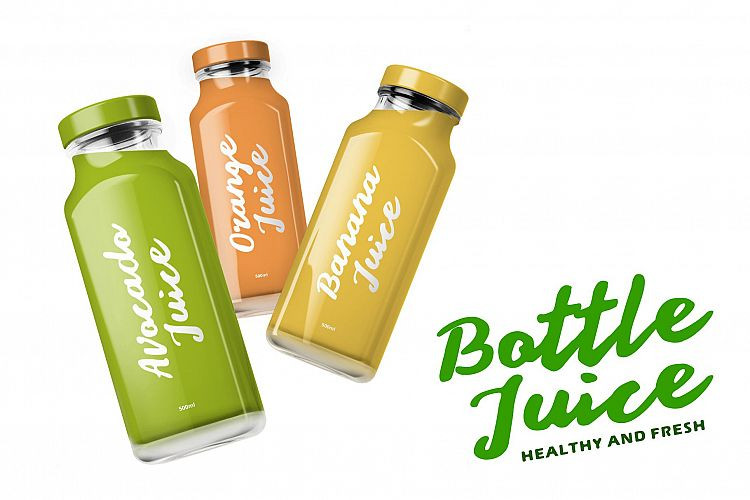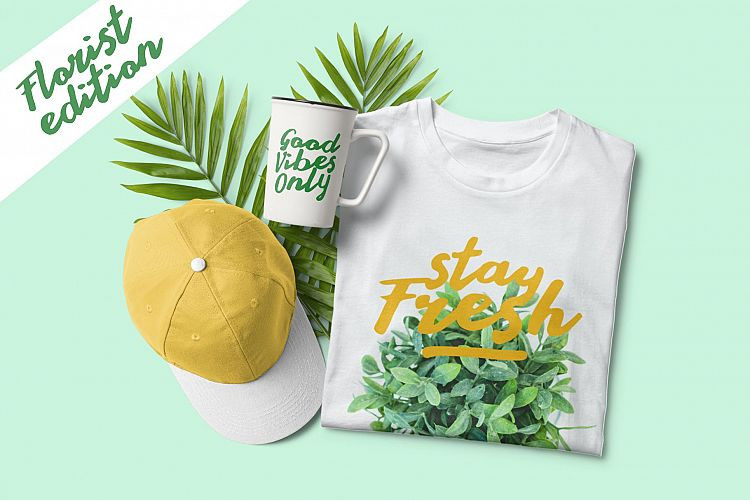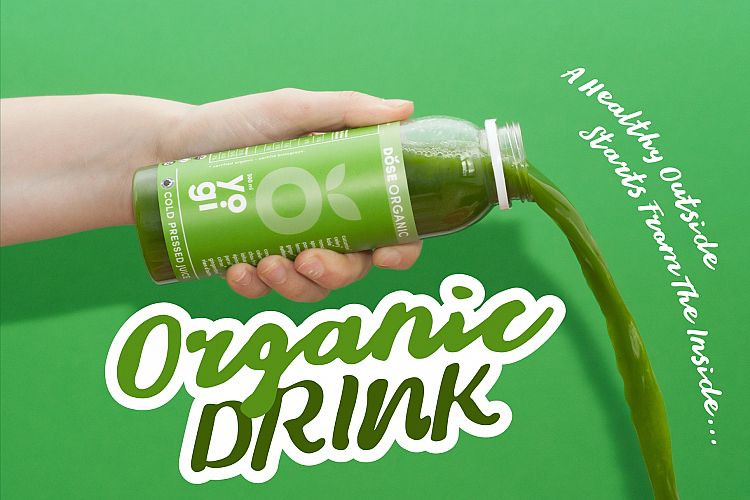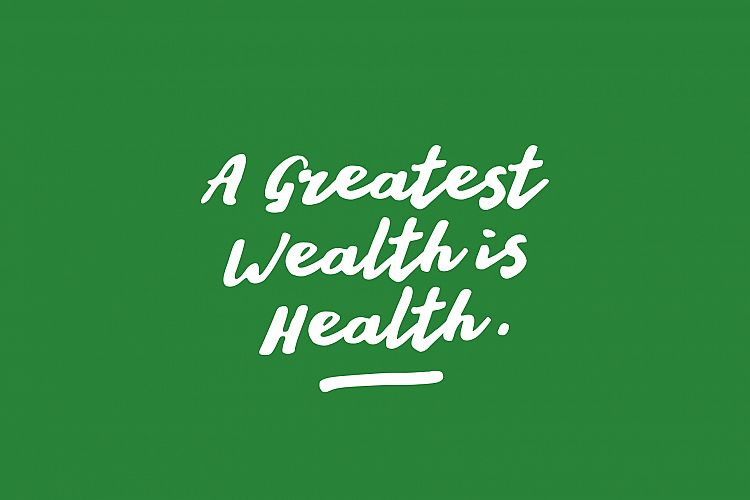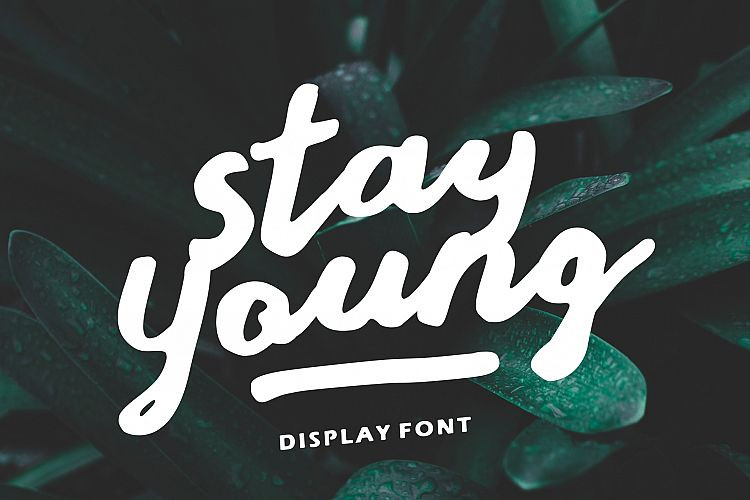
Stay Young Script Font
Stay Young Script – Free Demo
Say hello to Stay Young Font. This is a strong and bold script type, curved and rounded in every single touch. It has a unique and vintage style that perfect for branding and design needs. It is designed and shared by AZetype. Stay Young! A Display typeface with natural dan fresh looks. Stay Young looks natural on all your design projects such as quotes, poster design, product packaging, t-shirt, food and drink poster, etc. This type can be used at any time and any project. You can see in the presentation picture above, it’s so natural looks, isn’t it?